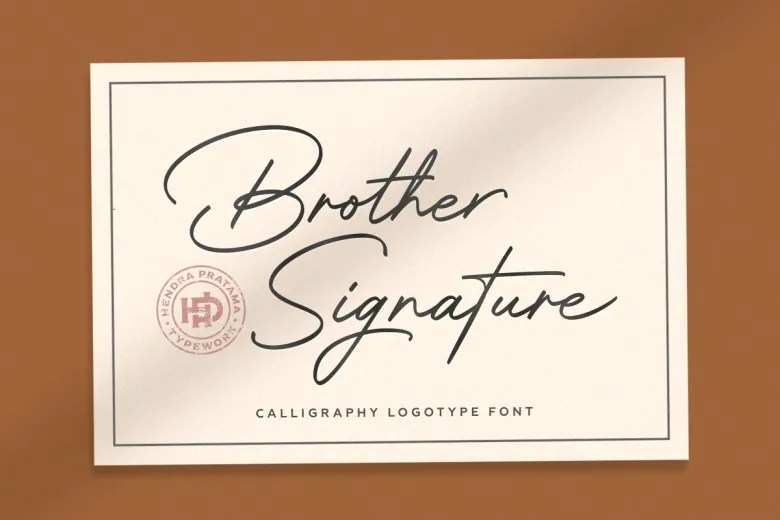
Brother Signature Font
Brother Signature by HPTypework is a premium signature font designed to add a touch of elegance and sophistication to your projects. Available for free download and personal use, the free version of Brother Signature includes both uppercase and lowercase letters, as well as a selection of special characters, providing a versatile range of options for your design needs.
This font captures the essence of handwritten signatures, making it ideal for adding a personal and refined touch to documents, invitations, and other creative projects. Its stylish design ensures that your text stands out with a unique and professional appearance.